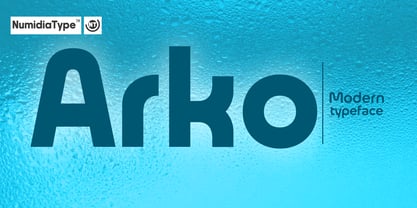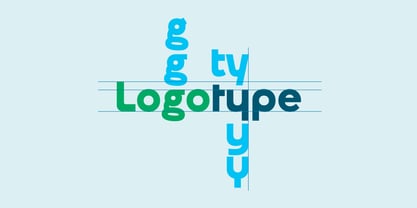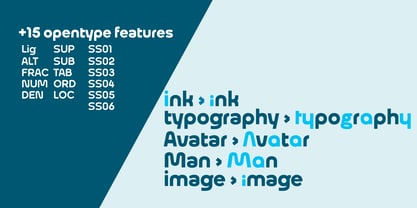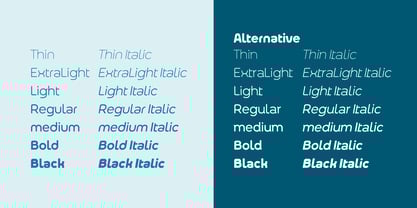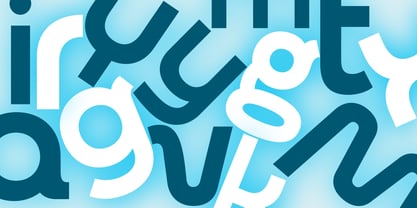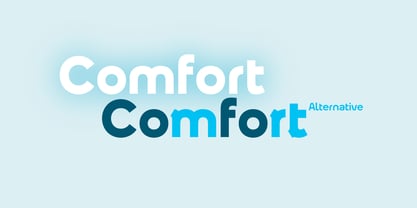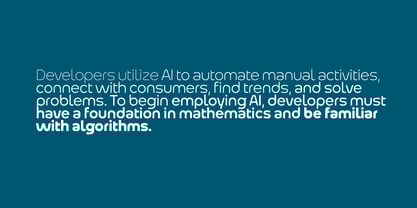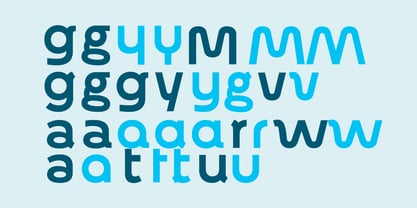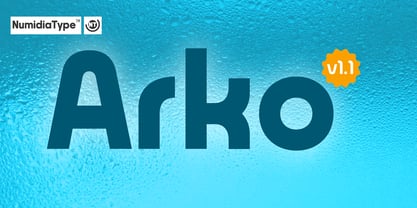
Arko
by NumidiaType
The Arko Font Family was designed by Yassine Abdi and published by NumidiaType. Arko contains 28 styles and family package options.
Arko™ is an aesthetic and clear font that blends modern styles with a distinctive hybrid approach. Seamlessly collecting the best of both sans and serif characteristics, Arko delivers proportionality and balance in every letterform. Its curvy typeface and refined structure promote smooth reading and elegant display, making it ideal for a wide range of creative applications. Crafted as a rich hybrid font family, Arko offers an array of alternative characters and styles, allowing designers to explore expressive possibilities while maintaining legibility and visual harmony. It supports Western European languages and is fully multilingual, making it versatile for international projects. Perfectly suited for titling, web design, logotypes, and high quality printing projects, Arko stands out as a modern, functional, and visually appealing choice for any designer seeking clarity with style. Last update: v1.1